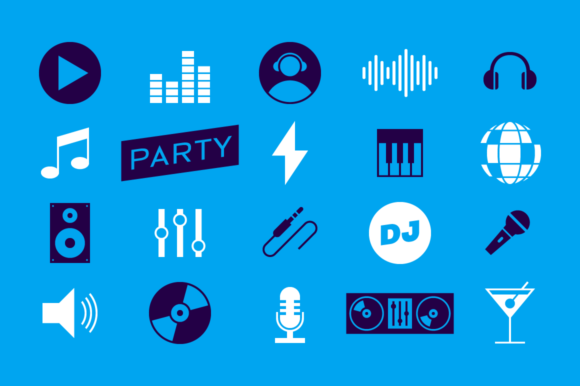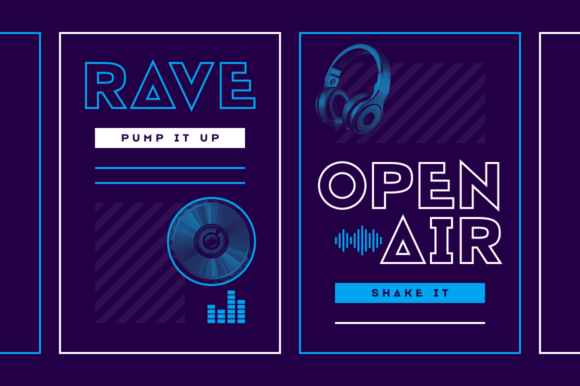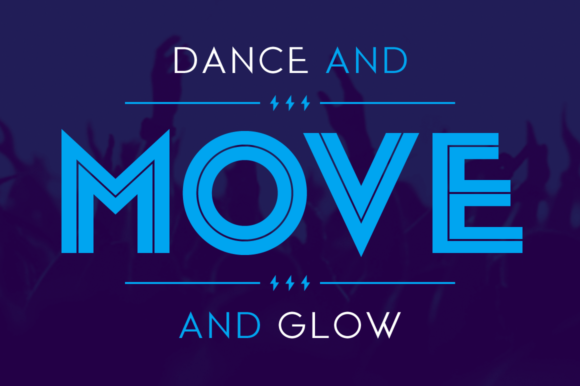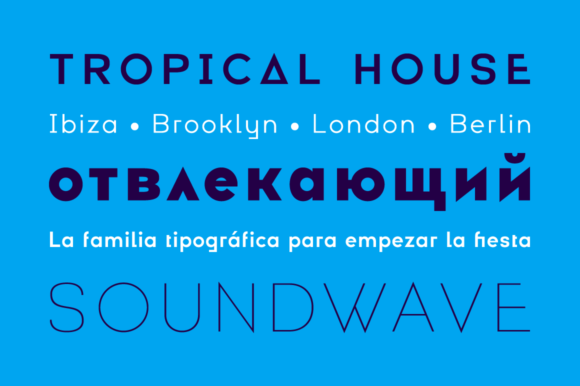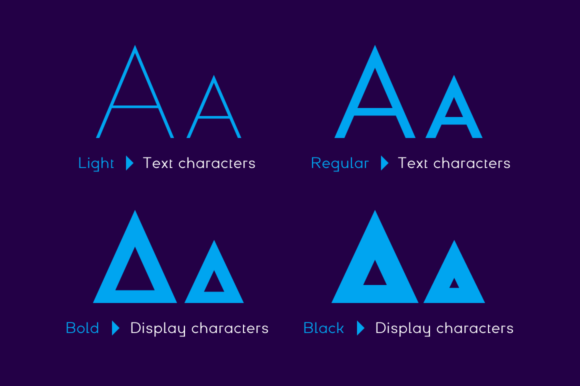
Introducing Electrónica Family Font: A Fun and Playful Geometric Sans Serif Typeface
In the world of typography, a new font family has emerged to capture the attention of designers and crafters alike. Electrónica, designed by Pablo Balcells for Graviton Font Foundry in 2019, is a rounded, geometric sans serif typeface that exudes a fun and laid-back vibe. With its display details and sharp, playful shapes, Electrónica is perfect for logos, headlines, and display design pieces, as well as short length text blocks.
Electrónica’s design is characterized by its rounded and geometric features, which give it a friendly and approachable feel. The font family consists of 12 styles, with 8 of them containing small caps and glyph coverage for several languages. This extensive language support makes Electrónica a versatile choice for designers working on international projects.
The font’s geometric sans serif design ensures that it remains clean and legible, even at smaller font sizes. However, its display details and sharp shapes also make it suitable for larger display pieces, such as headlines and logos. The playful nature of Electrónica’s design makes it perfect for brands and projects that want to convey a sense of fun and approachability.
So, what sets Electrónica apart from other font families? Here are some key features and benefits:
- Rounded and geometric design: Electrónica’s unique design makes it perfect for brands and projects that want to convey a sense of fun and approachability.
- 12 styles to choose from: With 12 styles, including 8 with small caps and glyph coverage for several languages, Electrónica offers a range of options for designers.
- Display details and sharp shapes: Electrónica’s display details and sharp shapes make it perfect for logos, headlines, and display design pieces.
- Language support: Electrónica supports several languages, making it a great choice for international projects.
Who is Electrónica for?
Electrónica is perfect for designers and crafters who want to add a touch of fun and playfulness to their projects. Here are some potential use cases:
- Branding and logos: Electrónica’s unique design makes it perfect for brands that want to stand out and convey a sense of fun and approachability.
- Headlines and display text: Electrónica’s display details and sharp shapes make it perfect for headlines and display text.
- Short length text blocks: Electrónica is also suitable for short length text blocks, such as product descriptions or social media posts.
In conclusion, Electrónica is a fun and playful geometric sans serif typeface that is perfect for designers and crafters looking to add a touch of personality to their projects. With its 12 styles, language support, and display details, Electrónica is a versatile font family that can be used for a range of applications. Whether you’re working on a branding project, headline, or short length text block, Electrónica is definitely worth considering.